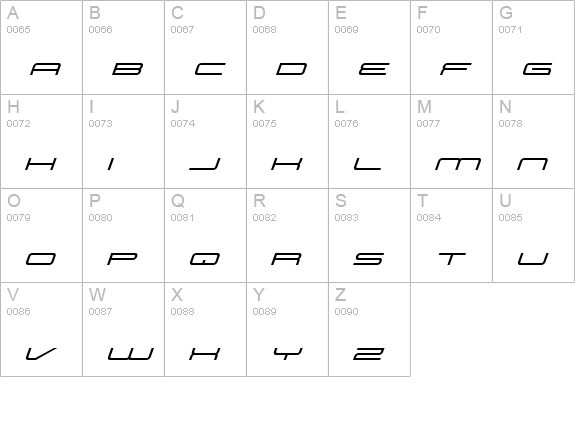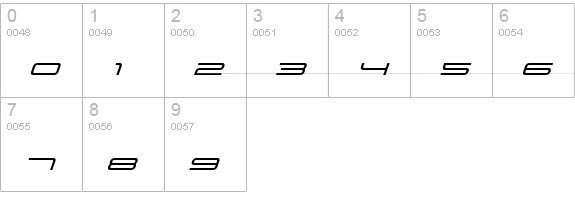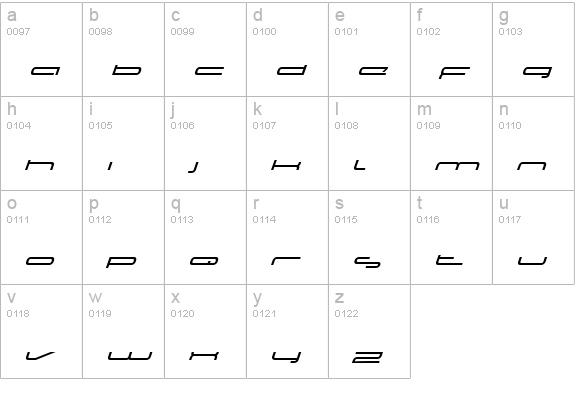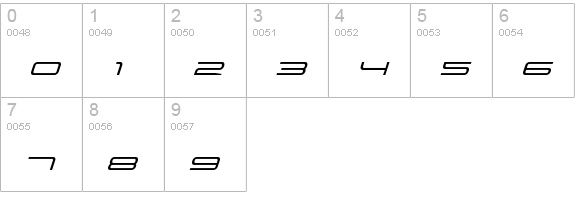
Neutronica DNA Font Details
The Neutronica DNA font is a cutting-edge typeface that combines futuristic aesthetics with a sleek and modern design. Its unique DNA-inspired shapes and bold, dynamic lines make it perfect for projects that require a contemporary and innovative look. The font exudes a sense of scientific advancement and technological prowess, making it ideal for use in branding, advertising, and creative designs. Best of all, Neutronica DNA font is available for free download at FontsMarket.com. This means that you can easily access and use this striking font in your projects without any cost. Whether you are a professional designer looking to add a fresh touch to your creations or a hobbyist seeking to experiment with a new style, Neutronica DNA font offers endless possibilities for creative expression. Download it today and unleash the power of this cutting-edge typeface in your work.